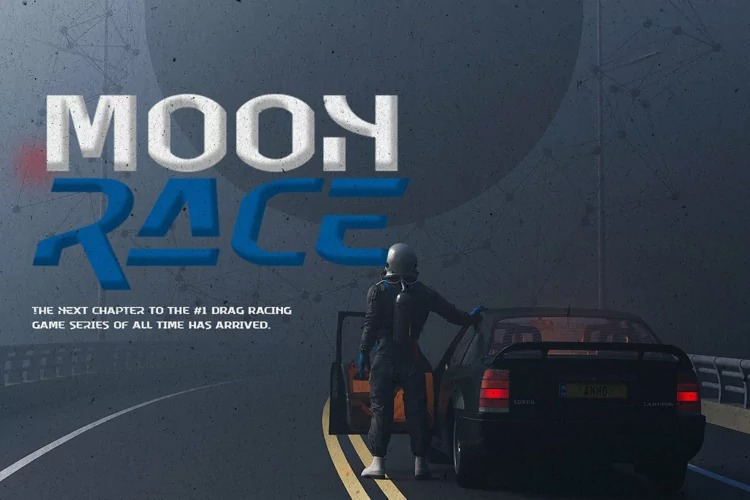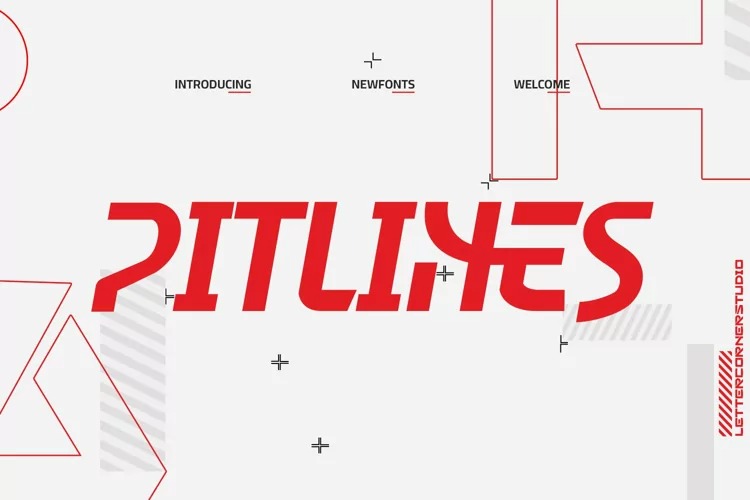
Pitlines Display Font is a futuristic design and space display font with sharp and consistent angles combined with a hard and strong style. Pitlines will perfect for many project: fashion, magazines, logo, branding, photography, quotes, blog header, poster, advertisements, etc.